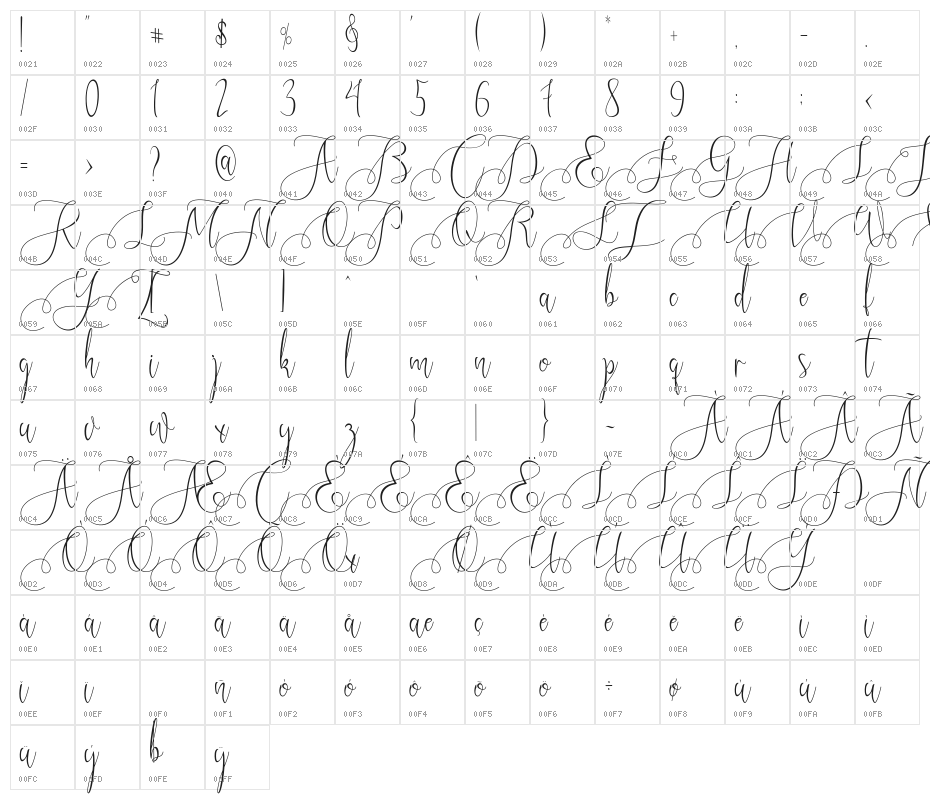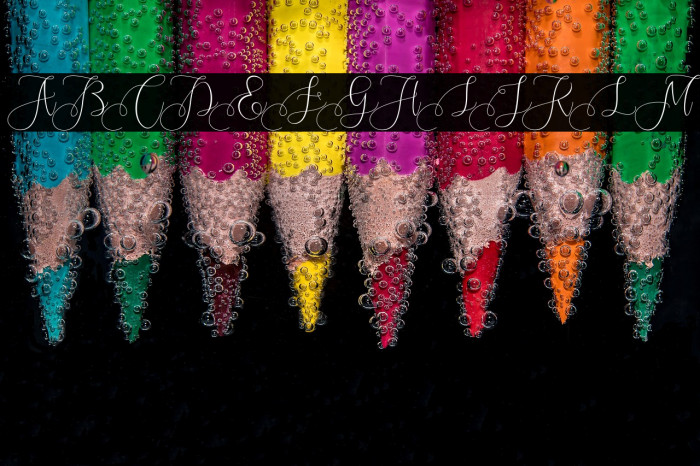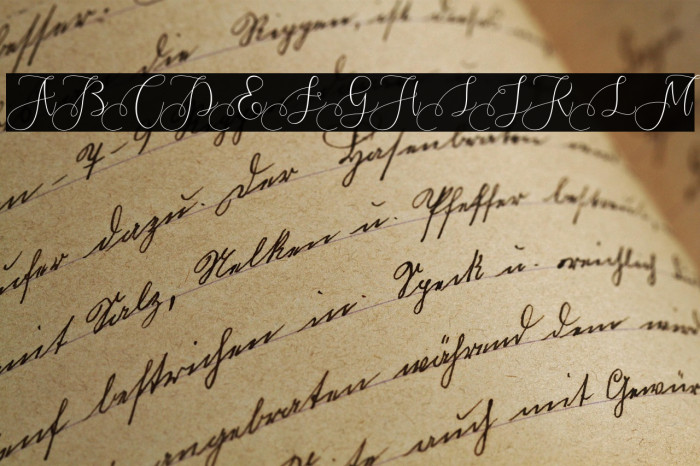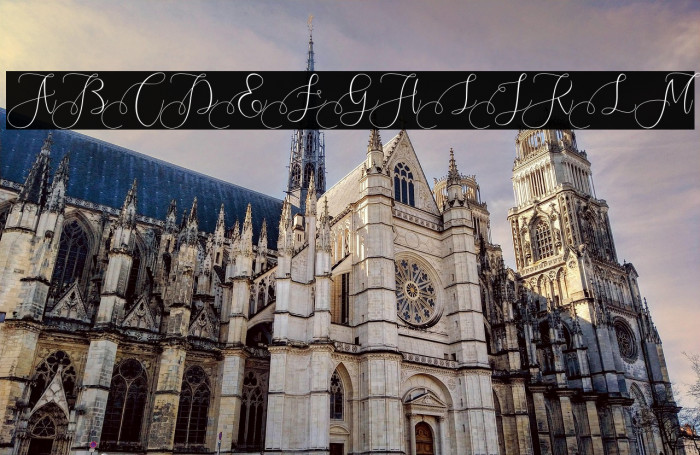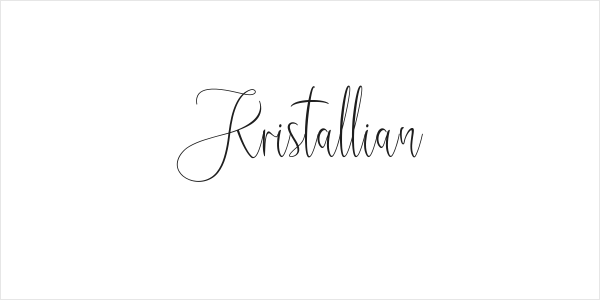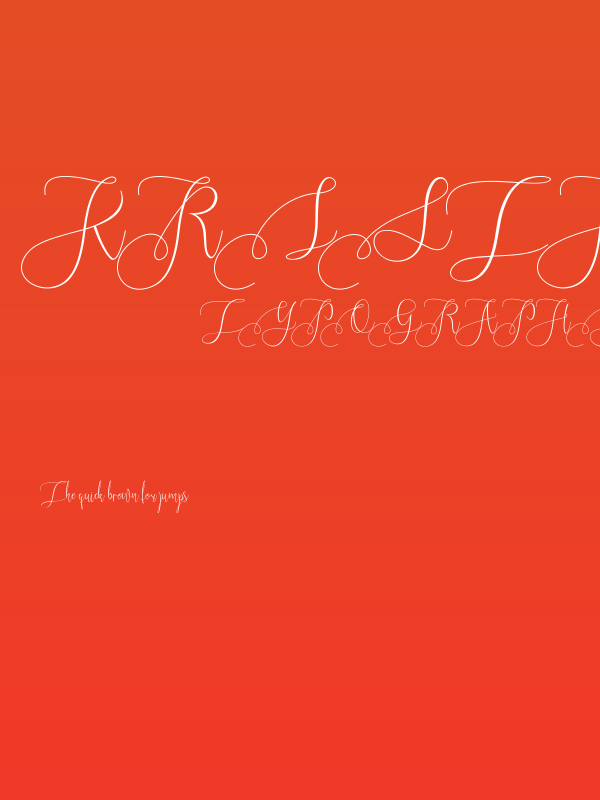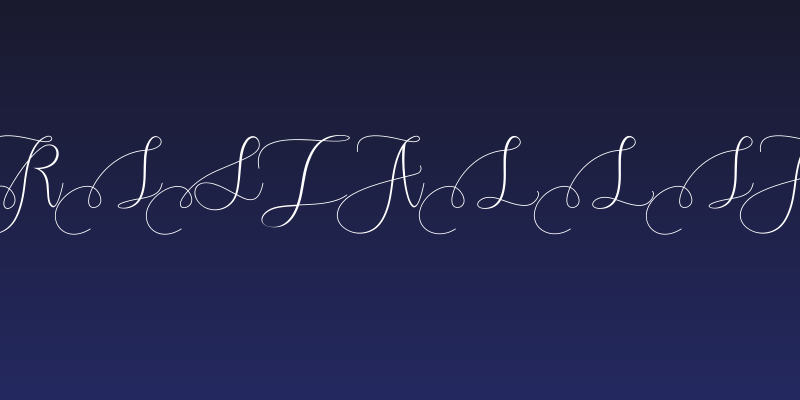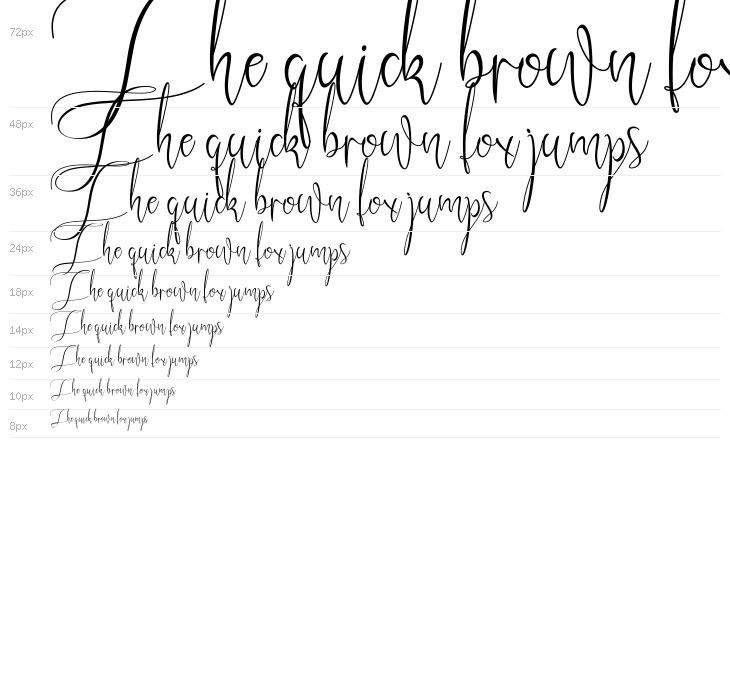
Kristallian Font
Kristallian Description
This elegant script font features a delicate and flowing style, characterized by its intricate loops and swashes. The uppercase letters are ornate, with each character displaying unique flourishes that add a sense of sophistication and grace. The lowercase letters maintain a consistent flow, complementing the uppercase with their smooth curves and subtle embellishments. The numerals are tall and slender, maintaining the font's overall elegance. Special characters are thoughtfully designed, integrating seamlessly with the rest of the typeface. This font exudes a sense of luxury and refinement, making it ideal for projects that require a touch of class and elegance.
| Proposed Projects | Wedding invitations, luxury branding, elegant stationery, high-end product packaging. |